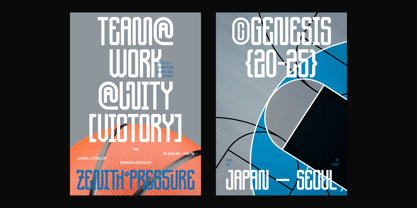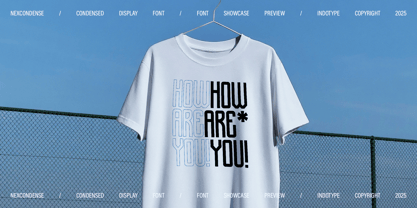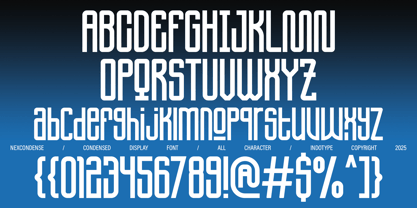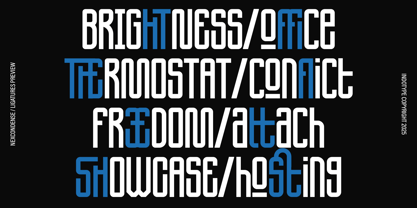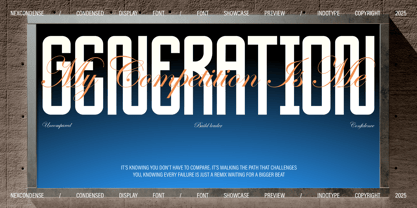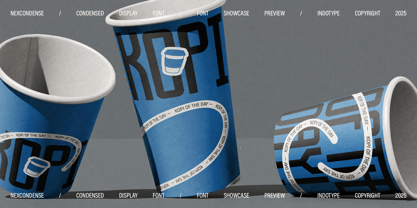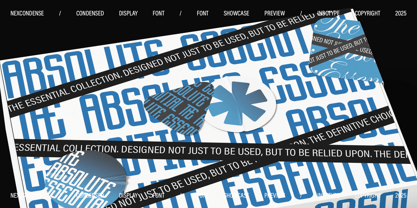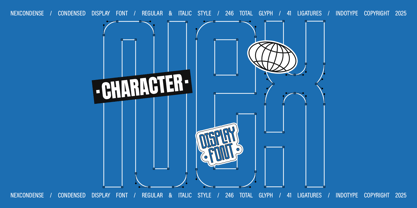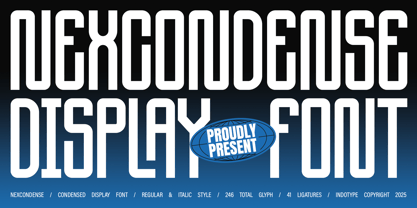
IT Nex Condense
by Indotype
The IT Nex Condense Font Family was designed by Frederik Aristaputra and published by Indotype. IT Nex Condense contains 2 styles and family package options. More about this family
NexCondense is a powerful and space-efficient condensed display font engineered for maximum impact in limited space. Its tall, narrow letterforms project confidence and modernity, making it an ideal choice for commanding attention in dense layouts where every pixel or millimeter counts. Designed with both a Regular and a dynamic Italic style, this font family offers versatility for creating hierarchy and motion within tight design frameworks. Boasting a comprehensive character set of 246 glyphs and an impressive 41 ligatures, NexCondense provides extensive creative control for crafting unique wordmarks and fluid typographic compositions. This font excels in environments that demand bold statements within confined areas—think editorial headlines, tech dashboards, sports branding, packaging sleeves, and urban streetwear graphics. NexCondense is the definitive tool for designers who need to say more with less space, without sacrificing an ounce of style or legibility. • Ideal for: Editorial Headlines, Tech Interfaces & Dashboards, Sports Branding, Packaging & Labels, Urban Streetwear, Movie Titles, Data Visualizations. • Classification: Display, Condensed, Sans-Serif, Geometric. • Attributes: Bold, Modern, Efficient, Urban, Confident, Technical, Dynamic.